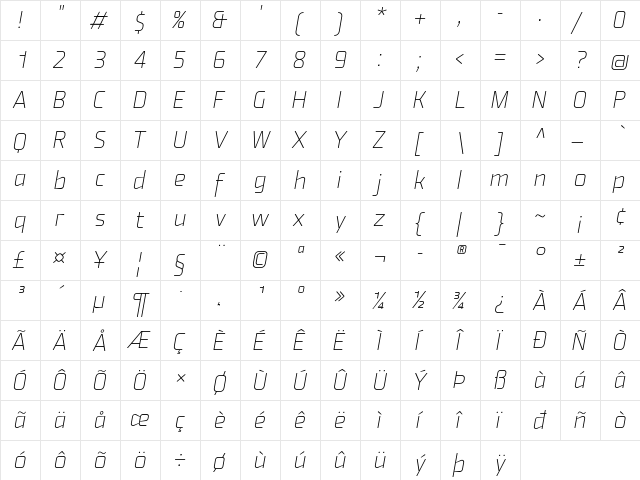
Fishmonger ET Italic
Design Context for Fishmonger ET Typeface
Fishmonger ET is a composed and adaptable typeface that performs quietly and consistently across a wide range of design contexts. The slanted form adds forward momentum and visual energy.
Pro Tip: Try Fishmonger ET for annotation and caption copy alongside an upright companion — the contrast in angle creates a dynamic but ordered typographic system.